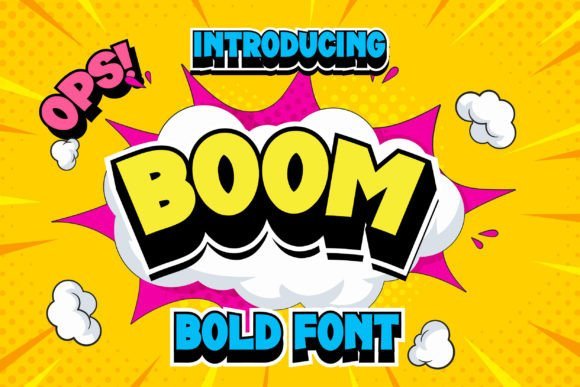
Get Ready to Blast Off with the Ultimate Display Font
You’ve spent hours perfecting your design, pouring your heart and soul into every detail. But sometimes, no matter how hard you try, it just needs that little something extra to make it truly pop. That’s where the Boom Pow Font comes in – a bold display font that’s guaranteed to grab attention and leave a lasting impression.
| 📌 Product Name | Boom Pow Font |
| 👤 Author | Patlot Digital.Studio |
This energetic typeface is the perfect blend of whimsy and dynamism, drawing inspiration from the colorful world of cartoons and superhero comic books. Whether you’re creating posters, book covers, or advertisements, the Boom Pow Font is the perfect tool to elevate your designs and captivate your audience. As a designer, you’ll appreciate its versatility and robust visual appeal, making it an invaluable addition to your creative arsenal.
Key Features of Boom Pow Font
- Font Family: Boom Pow Font is a display font designed for use in titles and headings.
- Font Size: Boom Pow Font is available in 7 font sizes, ranging from 12pt to 72pt.
- Resolution: Designed for use at high resolutions, ideal for print and digital applications at 300 DPI or higher.
- Unique Characteristics: Features bold, playful lines and geometric shapes, making it perfect for use in modern and trendy designs.
Designer Review: Boom Pow Font
As a designer, I was excited to dive into the Boom Pow Font, and overall, I have mixed feelings about this font.
- The Boom Pow Font has a fun and energetic vibe that’s perfect for creative projects and designs where you want to add a playful touch.
- The font’s bold and expressive lines make it great for use in headings and titles where you need to grab the user’s attention.
- The font’s pixel-perfect design makes it suitable for use in digital applications, such as websites and mobile apps.
- The font’s legibility can be a concern in larger blocks of text, as the bold lines can make it difficult to read.
- The font’s limited character set and lack of italics can be a limitation for designers who need to create complex designs.
The Boom Pow Font is a fun and energetic font that’s perfect for creative projects, but its limitations make it less suitable for complex designs or large blocks of text. While it’s not a font for every occasion, it’s definitely worth considering for projects where you want to add a playful touch.
Tips for Getting the Most Out of Boom Pow Font
To get the most out of the Boom Pow Font, use it for:
- Catchy headlines and titles.
- Fun and playful graphics.
- Emphasizing key messages or calls-to-action.
The Boom Pow Font is commonly used in:
- Advertising and marketing materials.
- Social media graphics.
- Event invitations and posters.
Ostrich Sans is a fun, modern sans-serif font perfect for use in digital products, web design, and gaming interfaces. It features a bold and playful feel, making it ideal for capturing a youthful and energetic atmosphere. Compared to Boom Pow Font, Ostrich Sans is more geometric and modern, with a wider range of font weights.
Carolyna Pro is a beautiful, elegant script font suitable for use in branding, packaging, and editorial design. It features a flowing, handwritten feel with subtle flair and sophistication. Unlike Boom Pow Font, Carolyna Pro is more refined and luxurious, making it ideal for high-end designs that require a touch of elegance.
3 Creative Project Ideas using Boom Pow Font
Project 1: Retro-Themed Party Invitations
Create eye-catching party invitations that scream fun and excitement with Boom Pow Font. This font is perfect for a retro-themed party, adding a touch of nostalgia and playfulness.
Q: What is the recommended font size and line height for optimal readability with the Boom Pow Font?
The recommended font size for the Boom Pow Font is between 12-14 points, with a line height of at least 1.2-1.5 times the font size. This will ensure optimal readability and legibility of the text. You can adjust the font size and line height to suit your specific design needs, but these guidelines provide